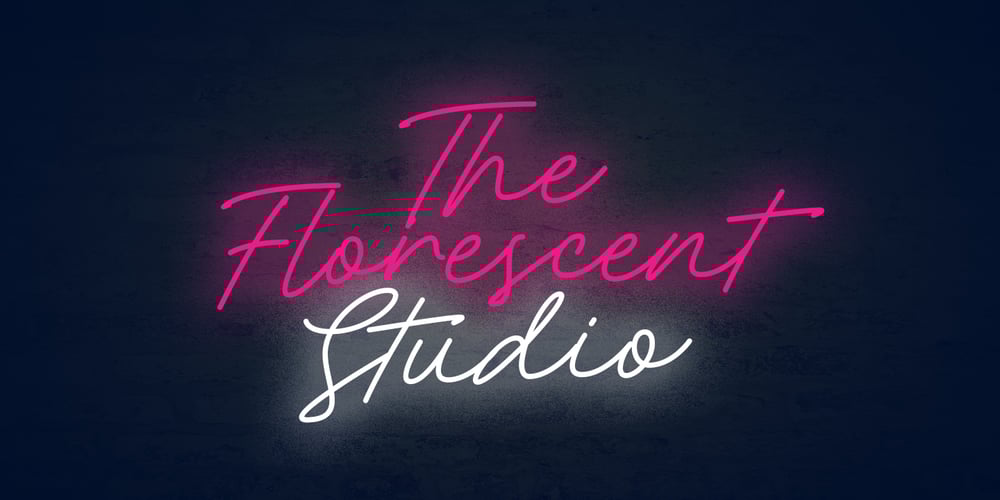
Rocket Clouds Font Family was designed by Aliv Pandu, Hamam Jauhari and published by Wacaksara co. Rocket Clouds contains 2 styles and family package options. Introducing our new font called Rocket Clouds inspired by Sythwave Style, 80’s Music, and Neon Light Sign. This font offer the aesthetic style and retro mood for your design needed. The Rocket Clouds style has a universal and timeless design. This font uses style of classic sign typography. Rocket Clouds immediately engages you no matter what you use it for. It’s beautiful for product labels, houseware and text overlay to any background picture.